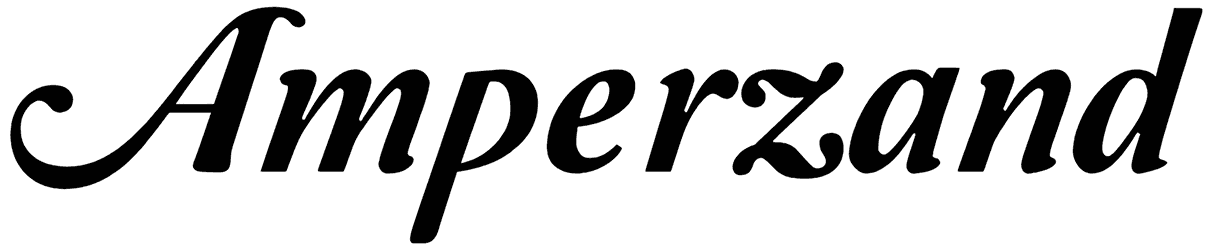
Amperzand Font
A classic handwritten text might have been the source of inspiration for designing a magical luxury serif font such as Amperzand that carries a combination of dynamic, professionalism, drama, and art. Since the edges of its characters are curved and elongated, it can be ideal for designing graphic content like movie posters, social media posters, logos, business cards, and menus.
Designed by: AJ Paglia